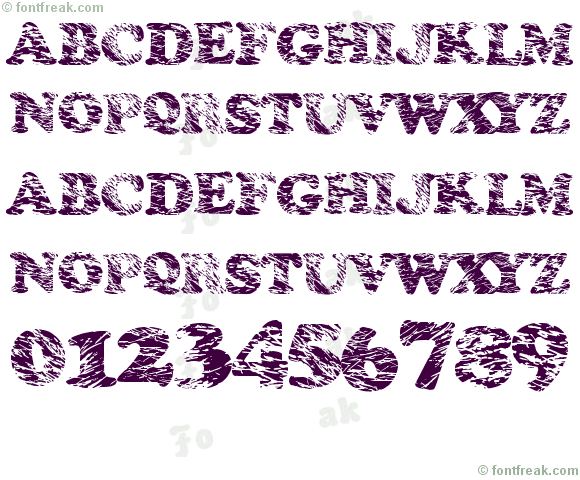
stormtime
Stormtime by Xerographer Fonts is a striking display typeface that captures attention with its unique visual characteristics. This font showcases a textured appearance reminiscent of weathered surfaces, giving it a dynamic and organic feel. With a bold stroke weight and a rough, uneven finish, Stormtime exudes a sense of raw energy, making it perfect for projects that require a touch of character and individuality. The spacing is generous, allowing each letter to breathe, while the irregular edges add to its artistic flair.
Ideal for a variety of creative applications, Stormtime is particularly well-suited for movie posters, where it can convey an adventurous spirit or dramatic flair. It also shines in restaurant menus, adding a rustic charm that can enhance the overall dining experience. Additionally, this font can elevate branding materials for small businesses, helping to create a memorable identity that stands out in a crowded market. Content creators will find it effective for eye-catching social media graphics, where grabbing attention is key.
The target audience for Stormtime includes graphic designers seeking to add a distinctive touch to their projects, small business owners aiming to establish a unique brand identity, and content creators looking for a font that can convey emotion and style.
What truly sets the Stormtime font apart is its ability to evoke a sense of movement and texture, making it more than just a typeface but a visual statement. Its free availability as a freeware license ensures that anyone can incorporate this captivating font into their designs without hesitation. Explore the possibilities with Stormtime font free download and transform your creative projects into expressive works of art.